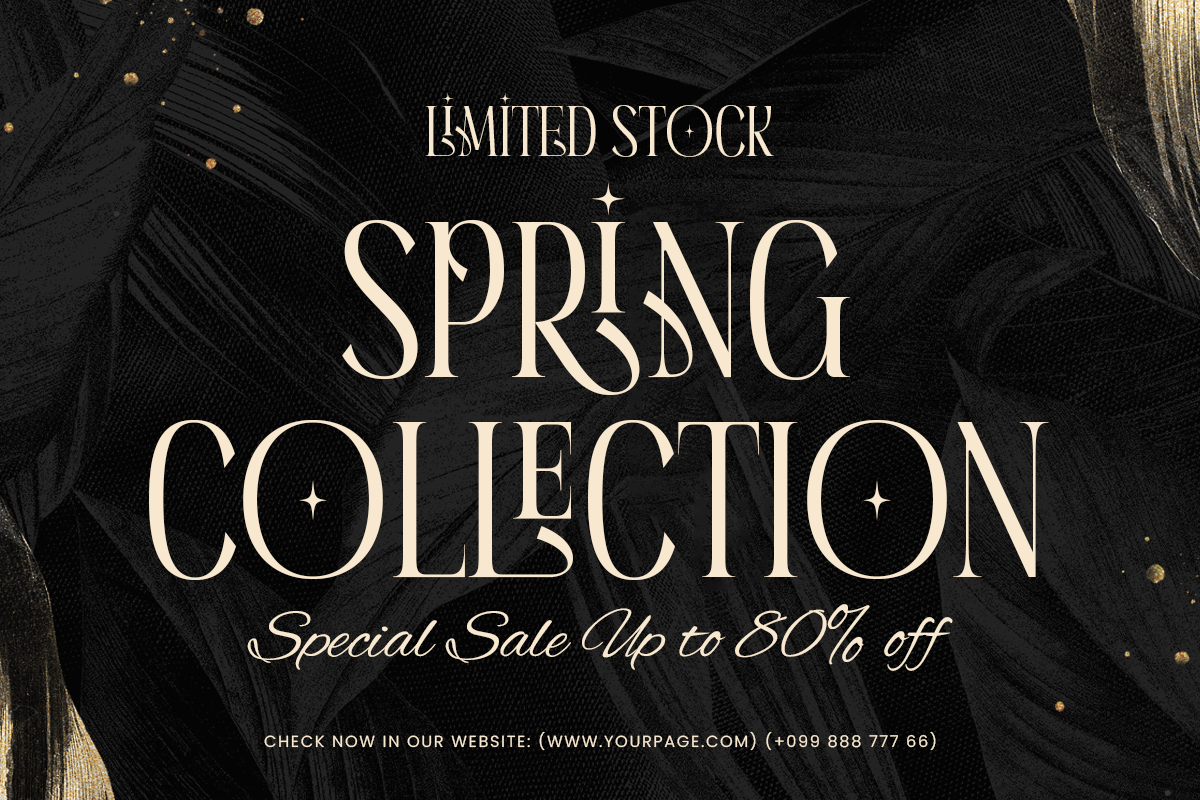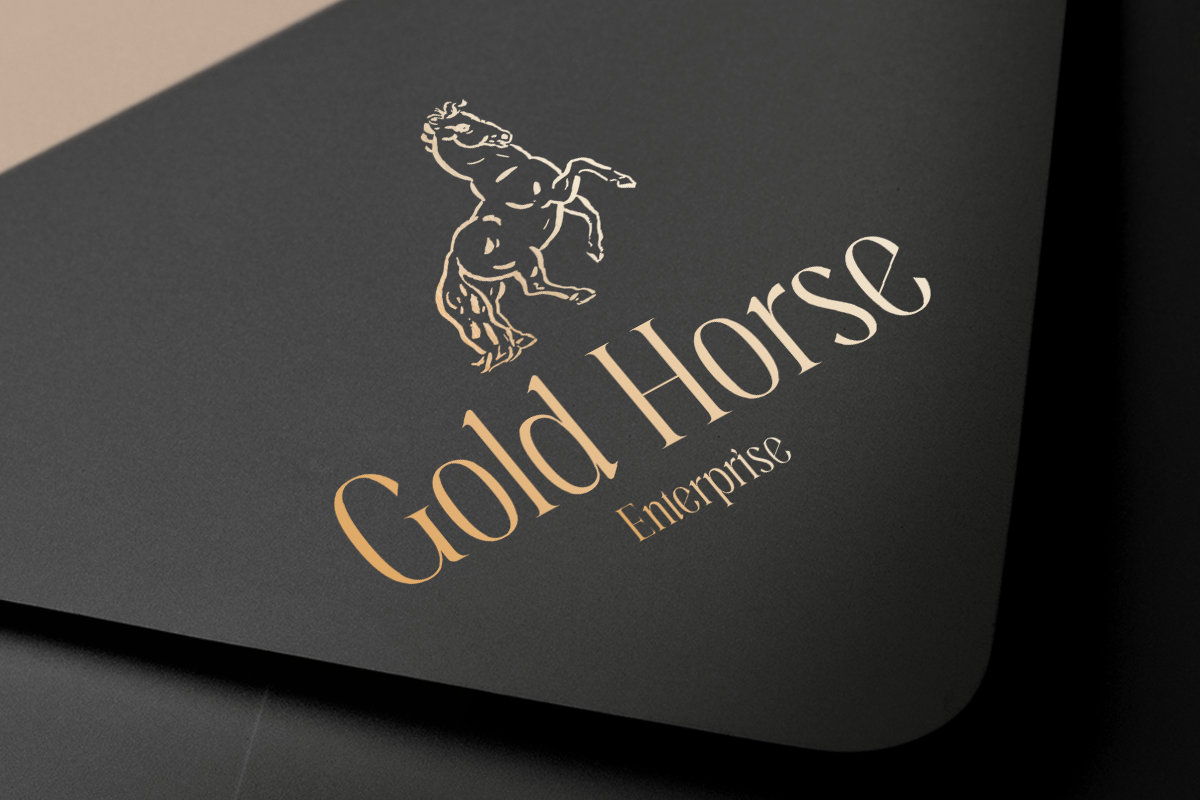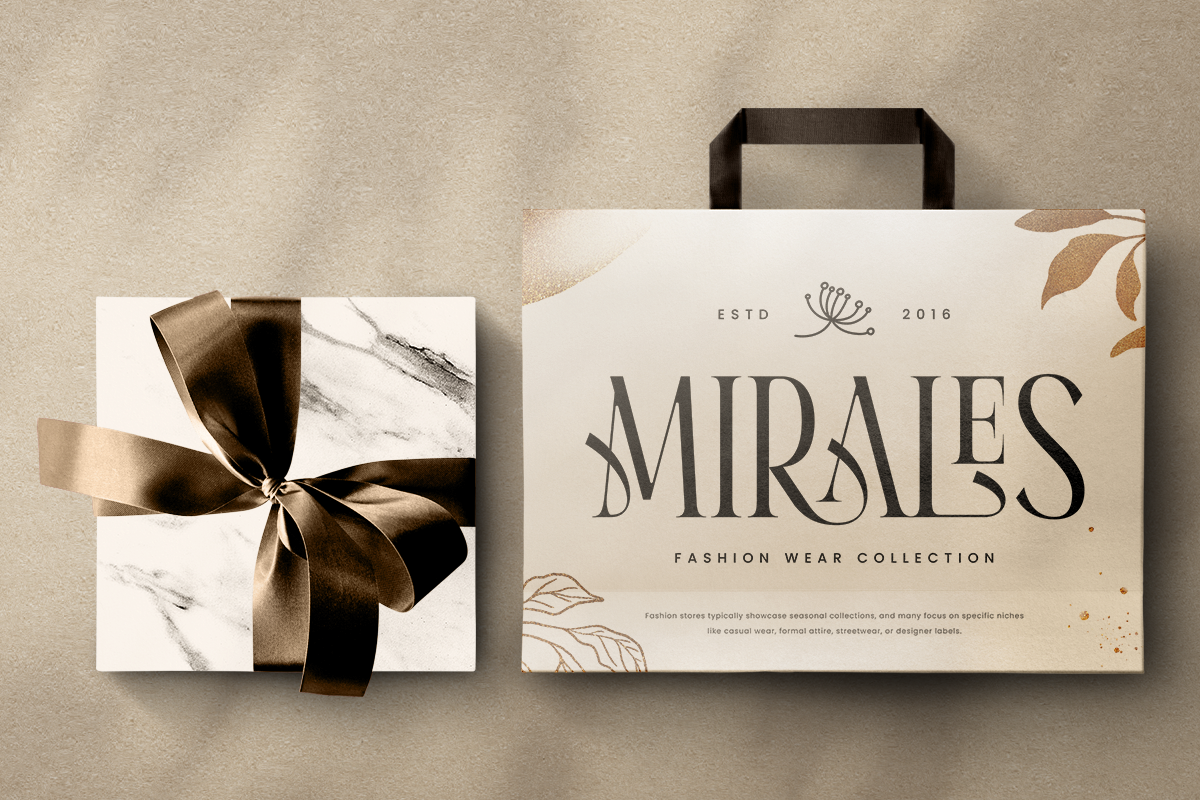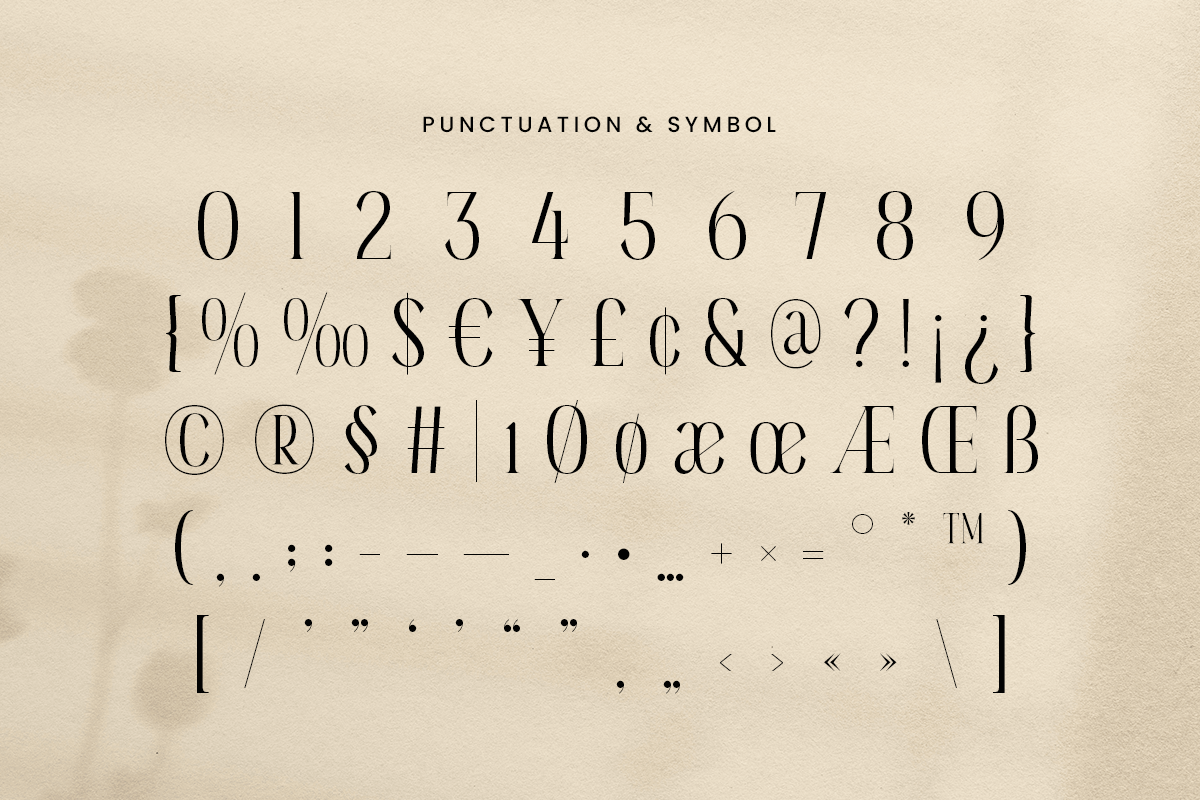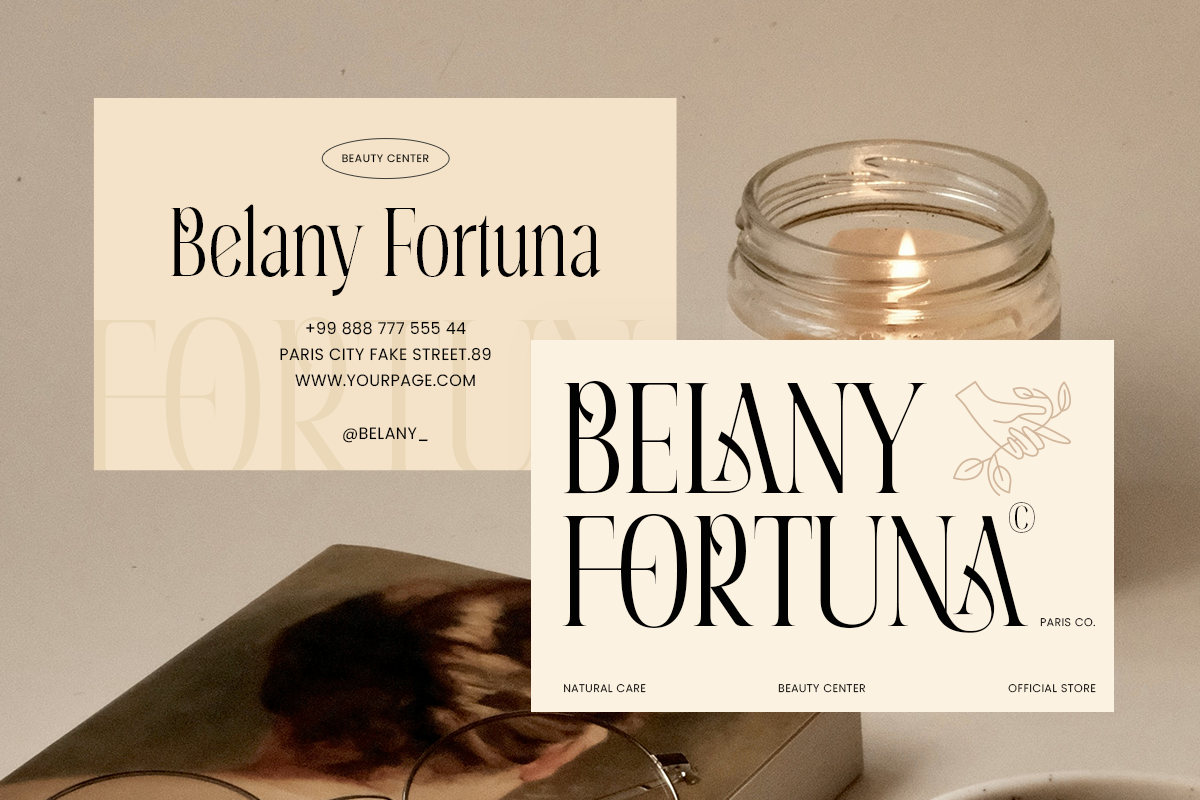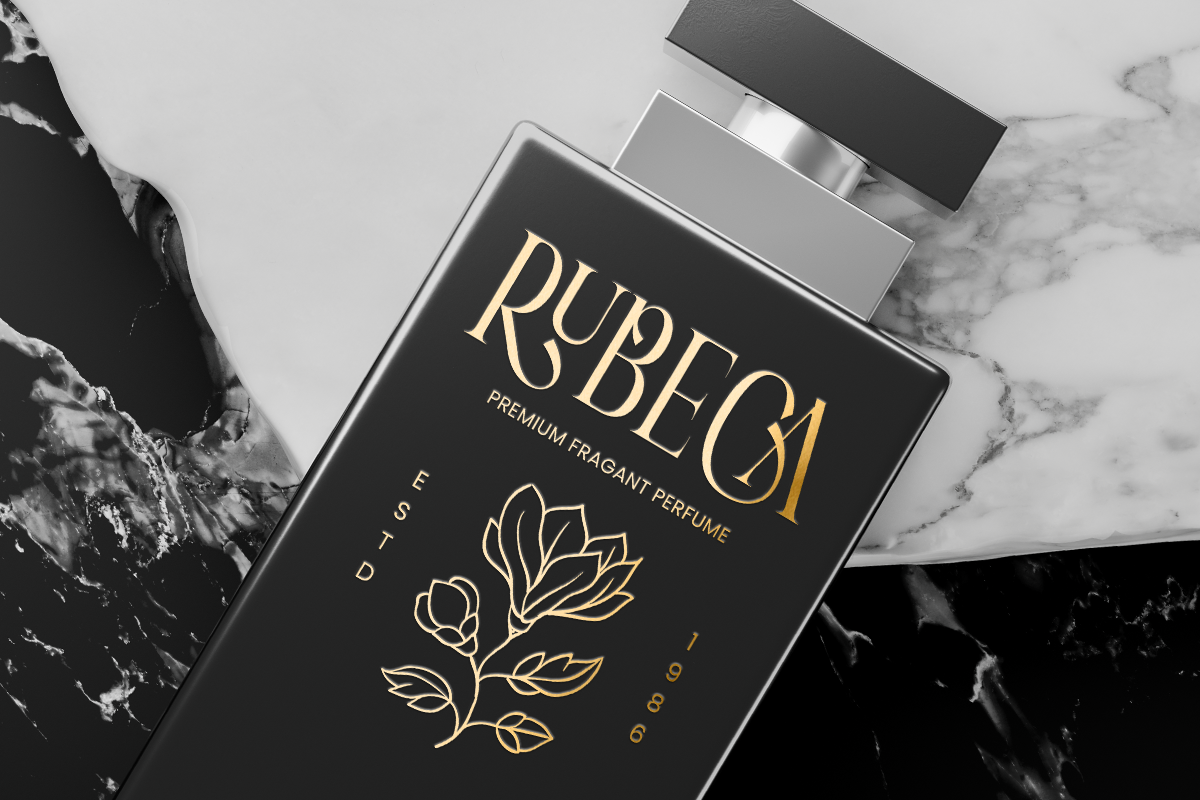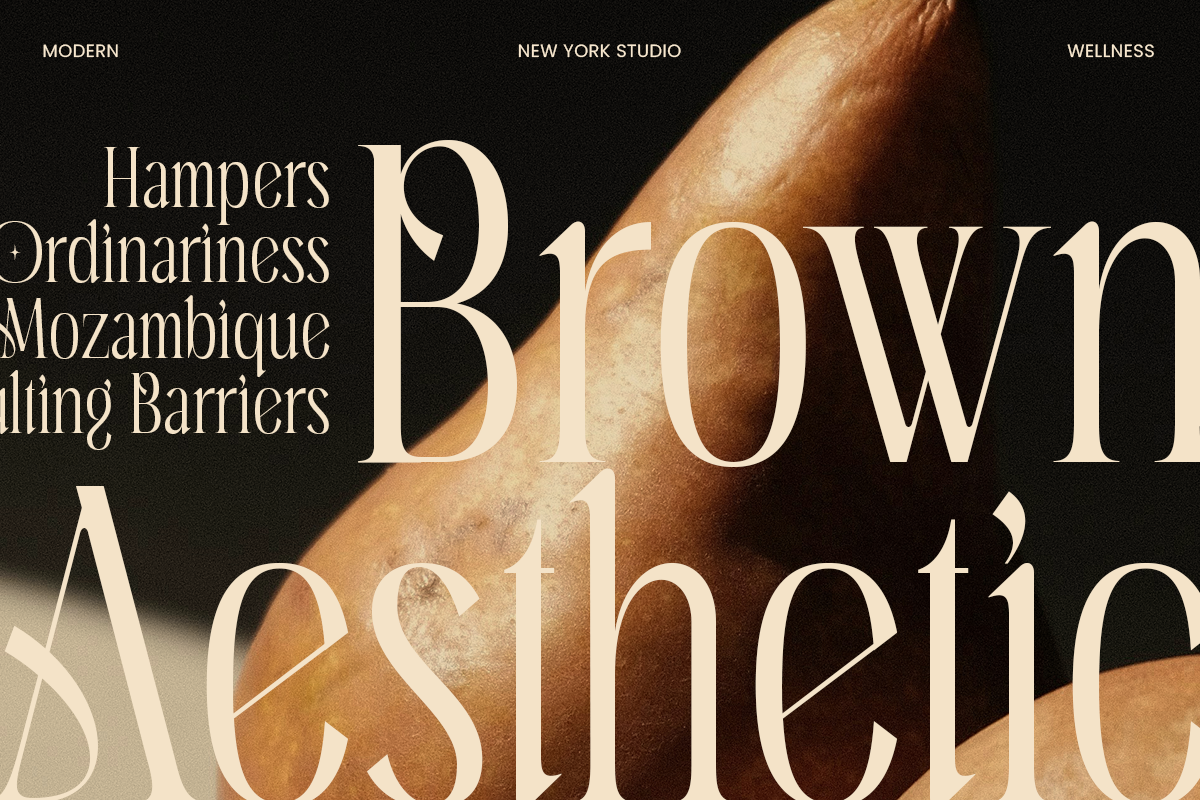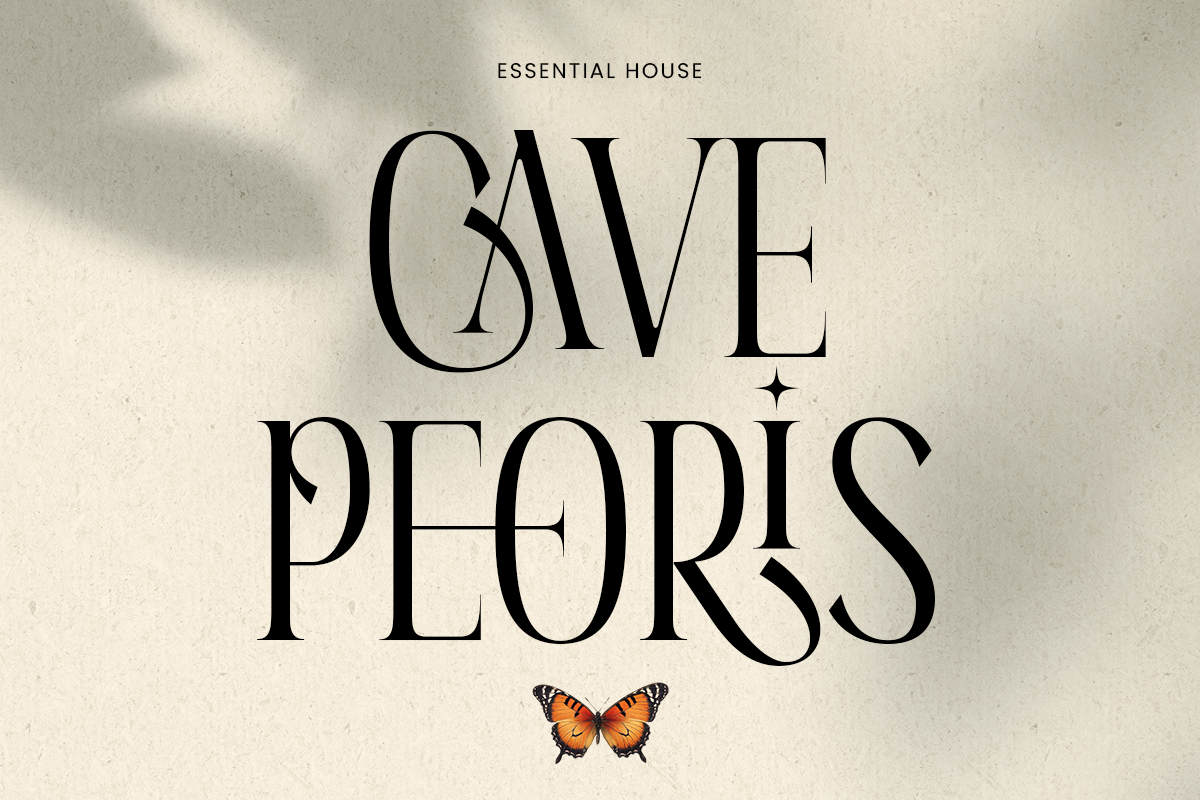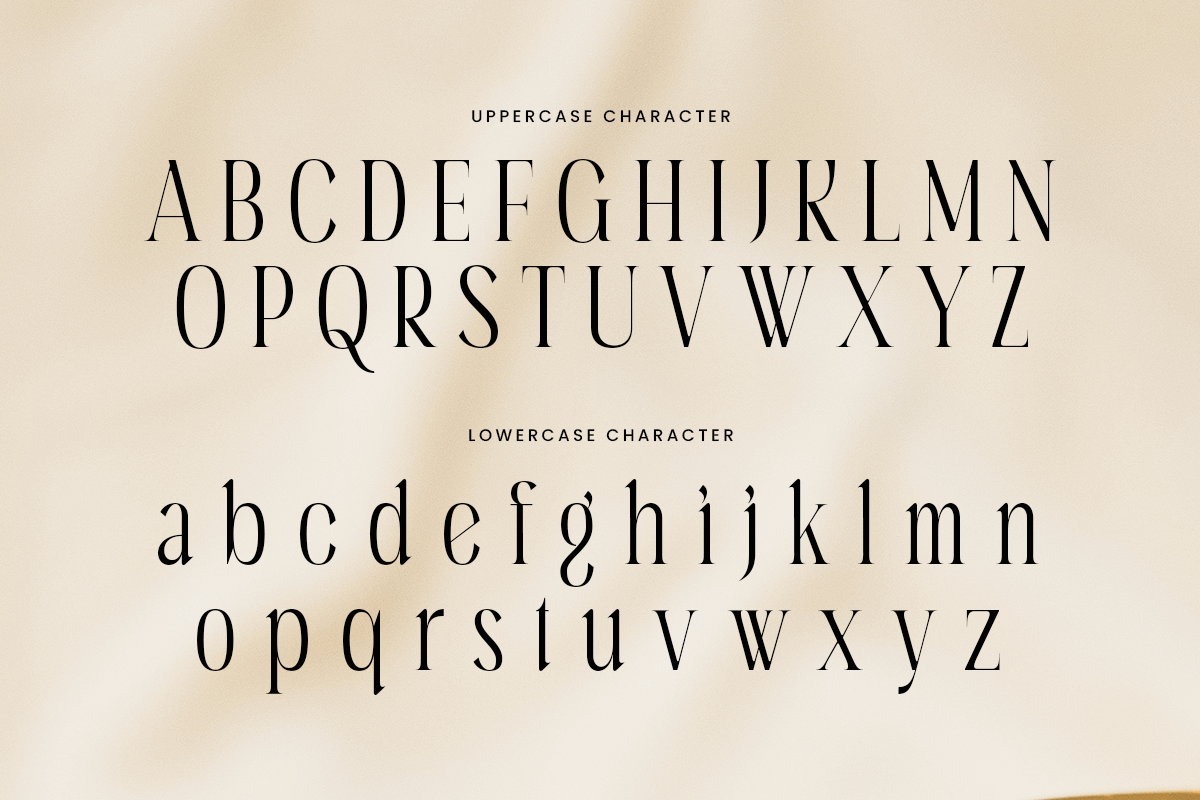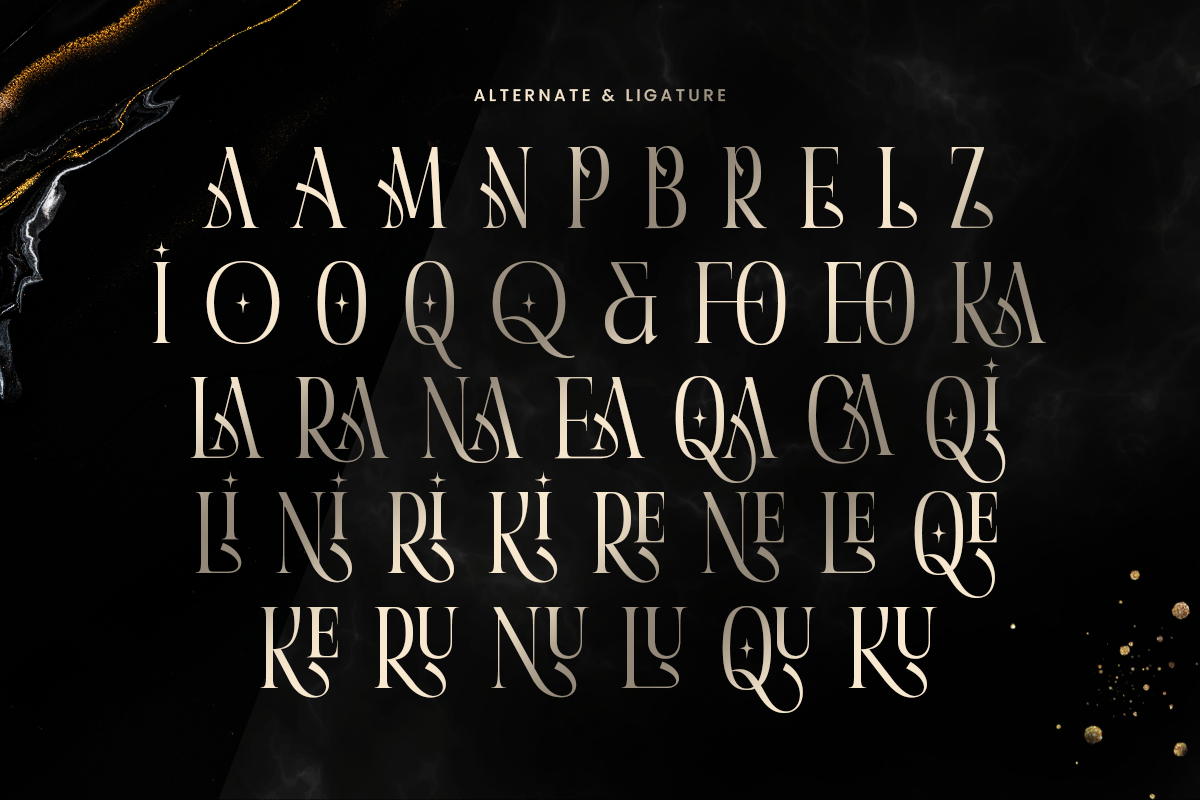
Aqila - Condensed Luxury Font
Aqila is a condensed luxury font crafted to elevate your designs with elegance and sophistication. With its refined, narrow forms and sleek appearance, Aqila stands out as a perfect choice for branding, high-end editorial layouts, and luxury projects. Its unique style ensures that any text appears modern and polished while maintaining readability.
Aqila's distinctive letterforms provide a sense of exclusivity, making it suitable for fashion labels, upscale product packaging, and refined promotional materials. The font's condensed structure helps designers create impactful headlines and titles, maximizing space without sacrificing aesthetic value. Aqila’s graceful proportions bring a touch of luxury that commands attention in any setting.
Versatile and eye-catching, Aqila seamlessly adapts to a range of creative applications, from corporate branding to artistic endeavors. Its luxurious charm adds sophistication to your work, enhancing its visual appeal and creating a memorable impression.
Aqila Condensed Luxury Font Features:
Sophisticated and Stylish Characters
Luxury Ligature Character Collections
Unique Punctuation, Number, and Symbol
Opentype Features
Multilingual Characters available for:
Afrikaans, Albanian, Asu, Basque, Bemba, Bena, Breton, Chiga, Cornish, Dutch, English, Estonian, Filipino, Finnish, Friulian, Galician, German, Gusii, Indonesian, Irish, Italian, Kabuverdianu, Kalenjin, Kinyarwanda, Luo, Luxembourgish, Luyia, Machame, Makhuwa-Meetto, Makonde, Malagasy, Manx, Morisyen, North Ndebele, Nyankole, Oromo, Portuguese, Quechua, Romansh, Rombo, Rundi, Rwa, Samburu, Sango, Sangu, Scottish Gaelic, Sena, Shambala, Shona, Soga, Somali, Spanish, Swahili, Swedish, Swiss.